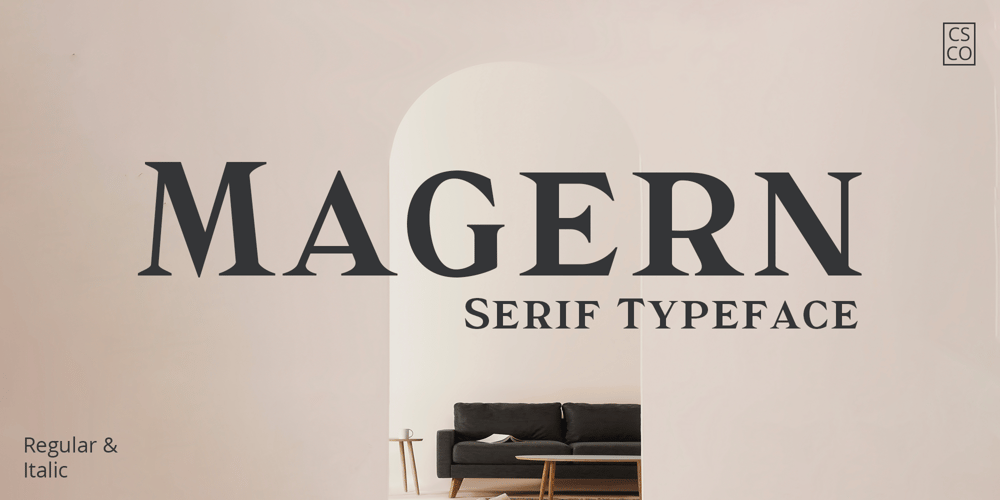
Magern Font Family was designed by Trio Nazzar Saputra, Wahyu Hadi Yuana and published by Craft Supply Co. Magern contains 2 styles and family package options. Introducing Magern – Serif TypefaceVersatility and EleganceFirstly, Magern stands out with its versatility. Created meticulously, it beautifully complements various editorial and magazine layouts. Consequently, it brings elegance and readability together.Craftsmanship in DesignBesides, the craftsmanship in Magern is impeccable. Each letterform is thoughtfully designed, ensuring it carries a classic yet contemporary feel. As a result, it captivates readers’ attention effortlessly.AdaptabilityFurthermore, Magern proves to be exceptionally adaptable. While it exhibits a strong presence in headings, it also maintains subtlety in body texts. Thus, it enhances overall readability.